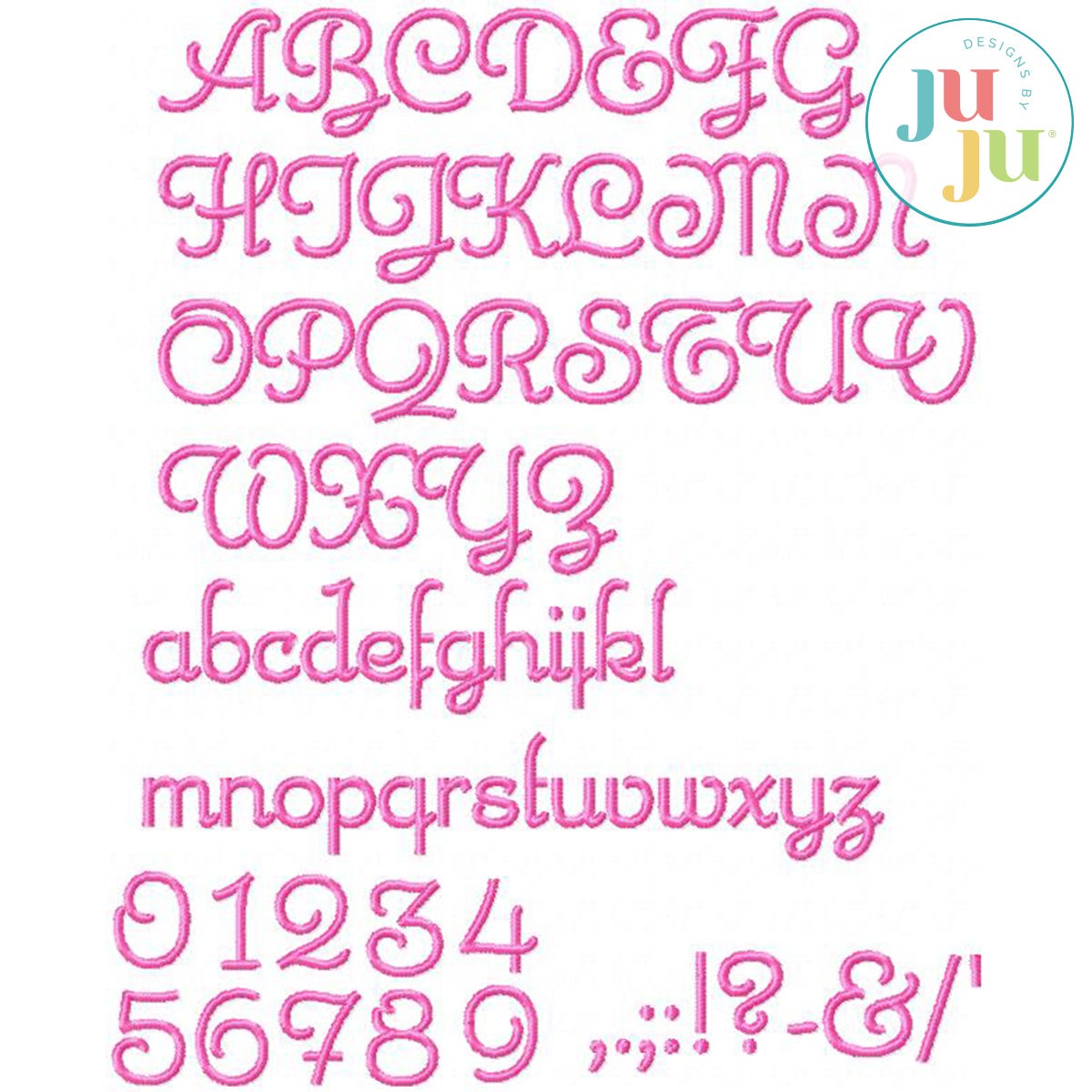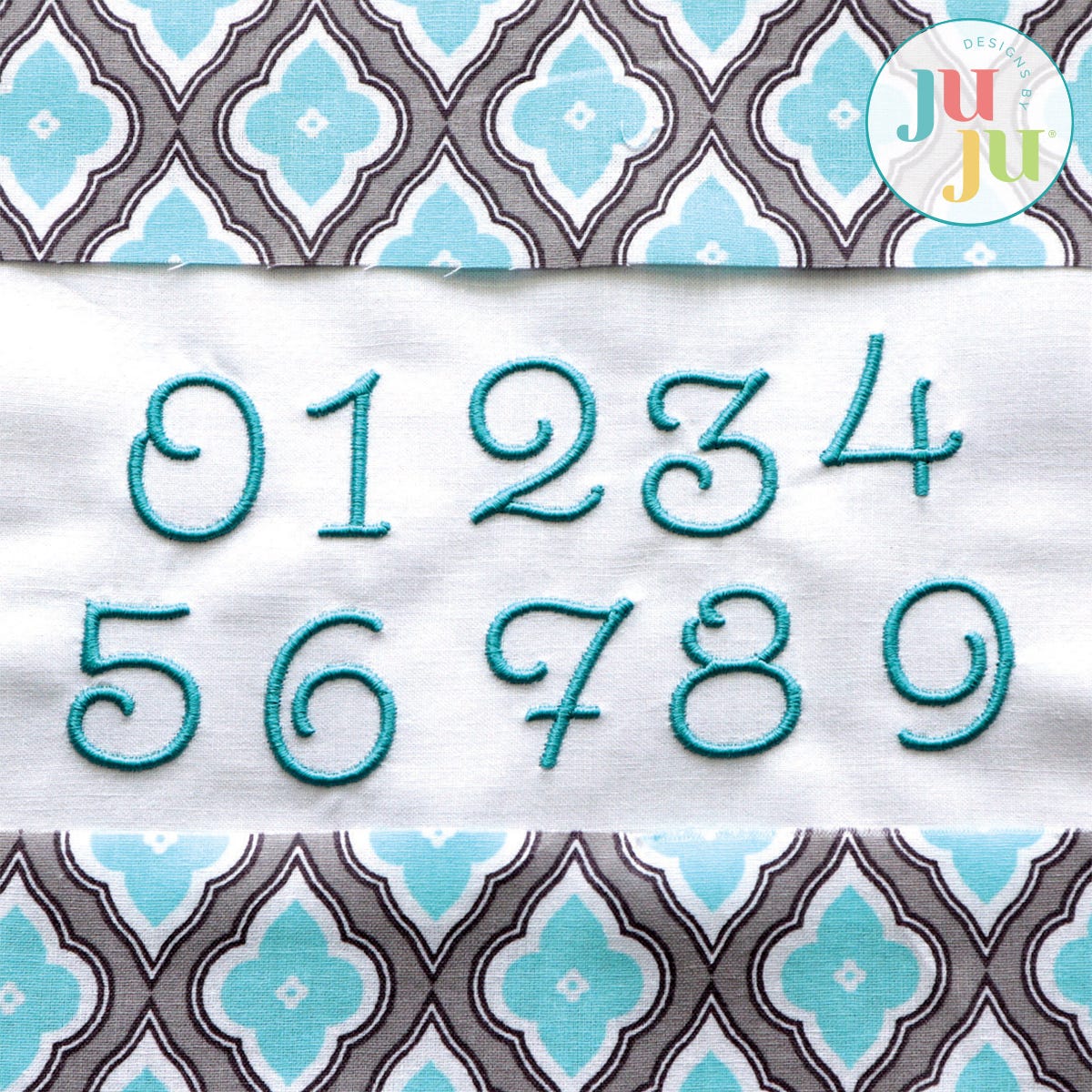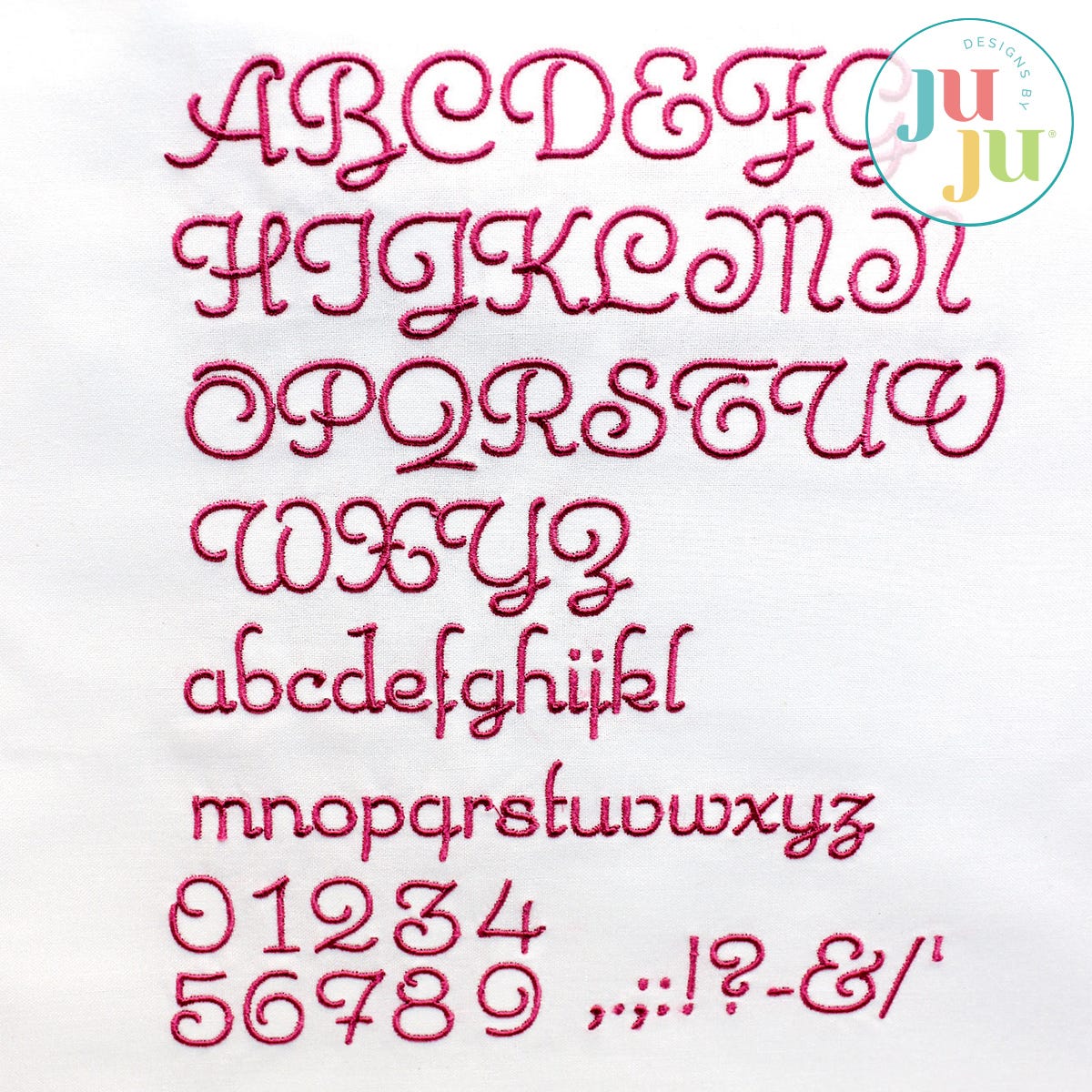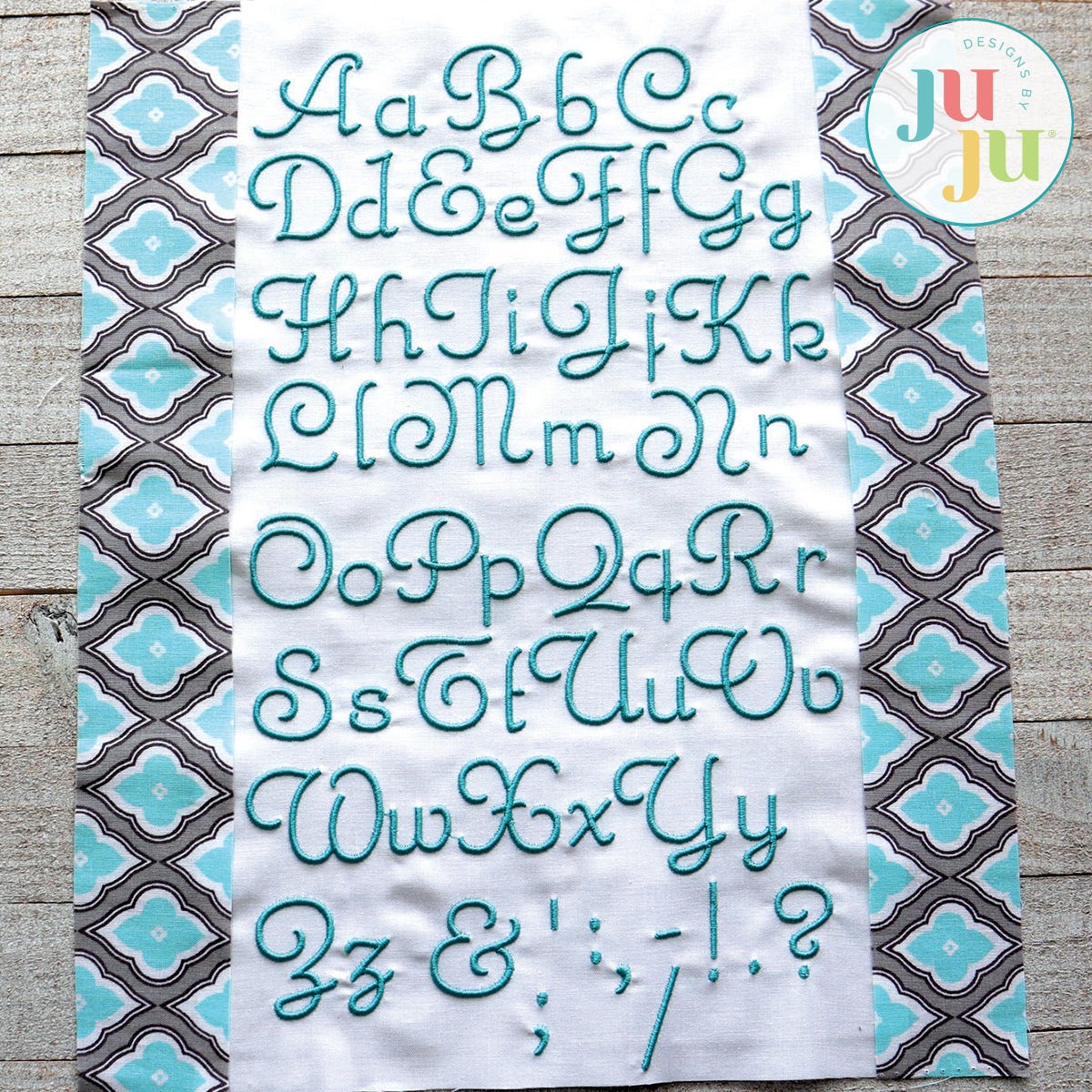
Carabelle Satin Stitch Embroidery Font by Oma's Place
Carabelle is a beautiful, free-flowing font with soft curves and curls that stitches out smoothly and adds a feminine touch to any project. It works especially well for personalizing gifts, monogramming, and creating labels for little girls’ items such as blankets or quilts. Capital letters are approximately 1.25" tall, with some slightly taller due to descenders, and can be used as monogram initials. Additional lettering sizes average about 0.75" tall and as small as 0.4" tall, remaining easily readable even at smaller scales and making this font excellent for mug rugs, names, and wording. Your download includes all uppercase and lowercase letters, numbers 0 through 9, and commonly used punctuation, and comes in multiple machine formats, including BX format for Embrilliance users.